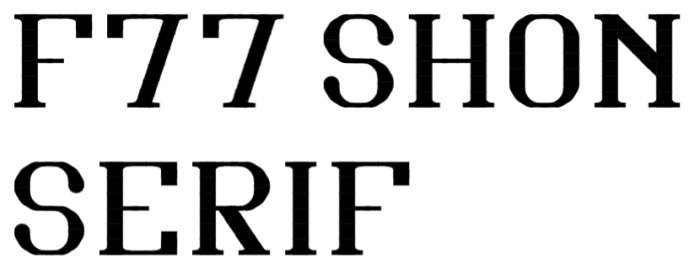
Very skillfully made and highly attractive looking. A superb serif design. When it's done (incl. Danish, French & German glyphs) I'd like to use it on my computer. 10/10 and fav
The M is weird for me. All of it's strokes are te same width